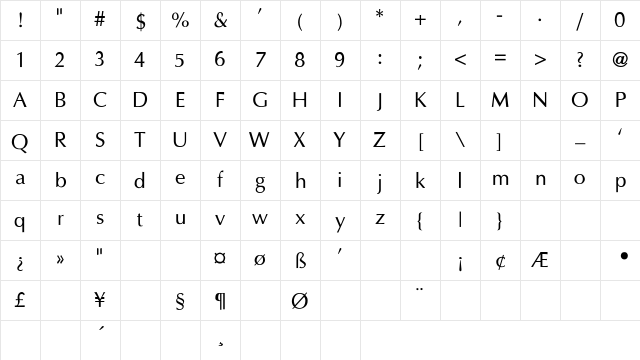
Optima-Thin Regular
Optima-Thin Family
Design Context for Optima-Thin
Optima-Thin is a composed and adaptable typeface that performs quietly and consistently across a wide range of design contexts. Its slender proportions lend an understated elegance to any composition.